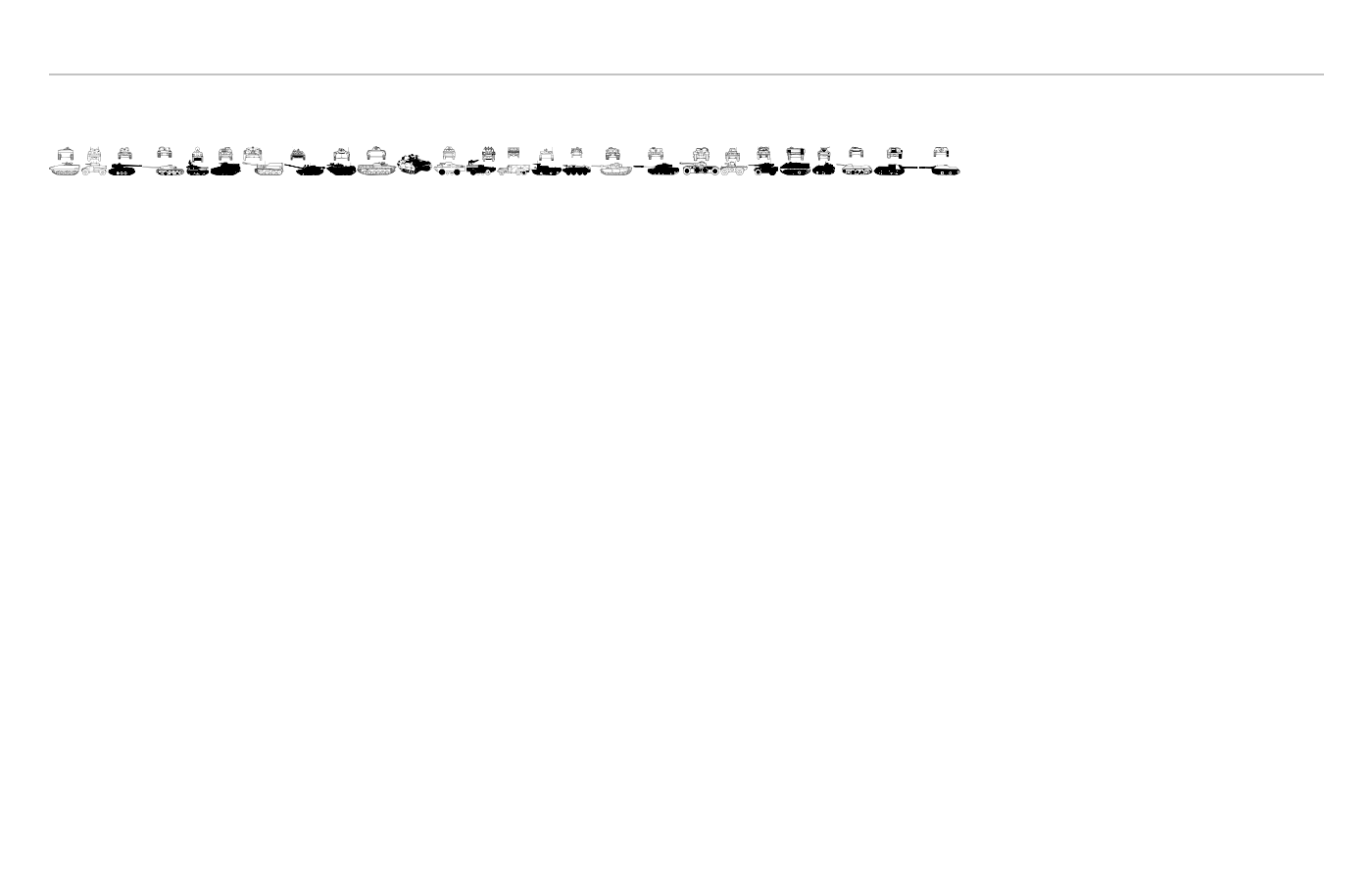
AFV1 Font is a unique, decorative typeface featuring playful, detailed illustrations of vehicles within each character, creating an engaging, illustrative style rather than traditional letterforms. This font works wonderfully for fun, niche projects like themed posters, children’s materials, or branding that benefits from a whimsical, eye-catching look. Its artistic approach is best suited for display use rather than body text, making it great for headlines or creative logos.
AFV1 Font
About AFV1 Font